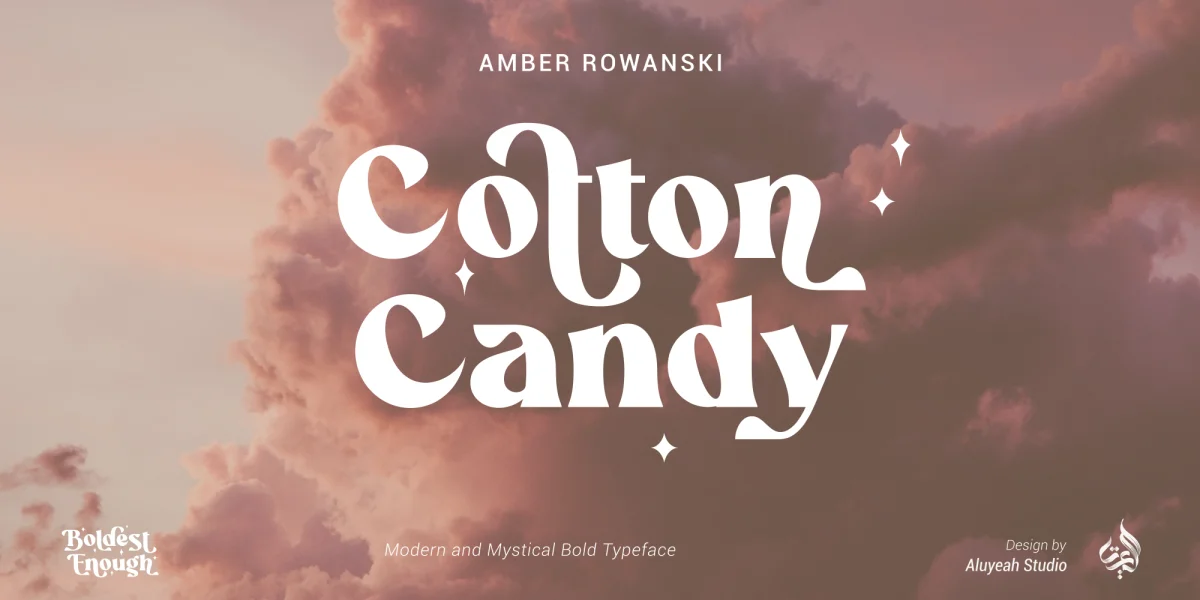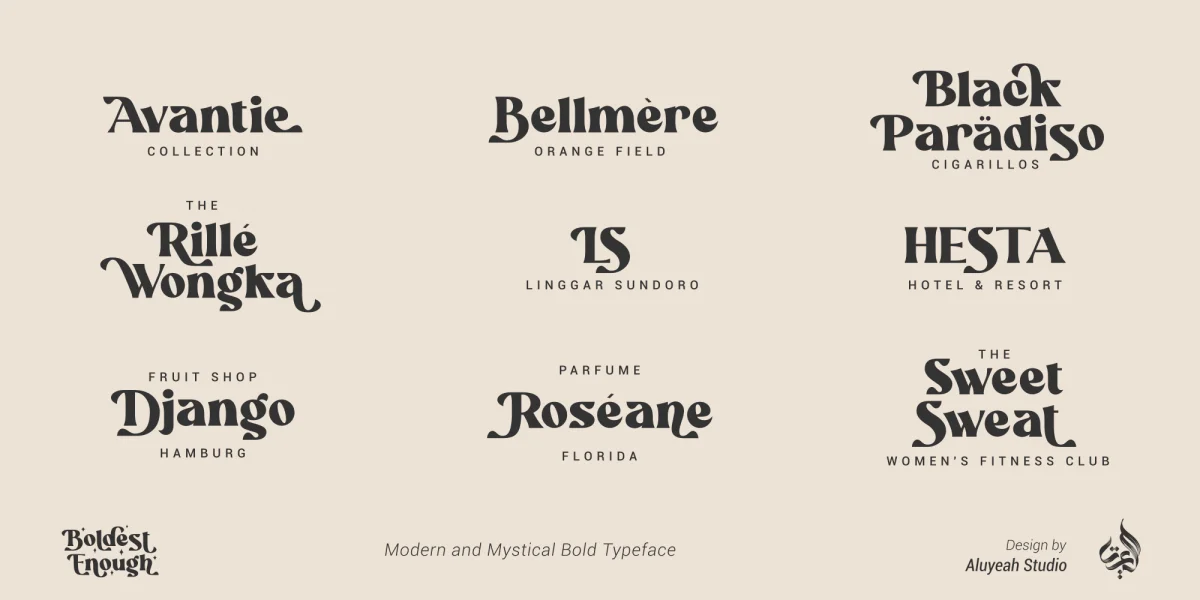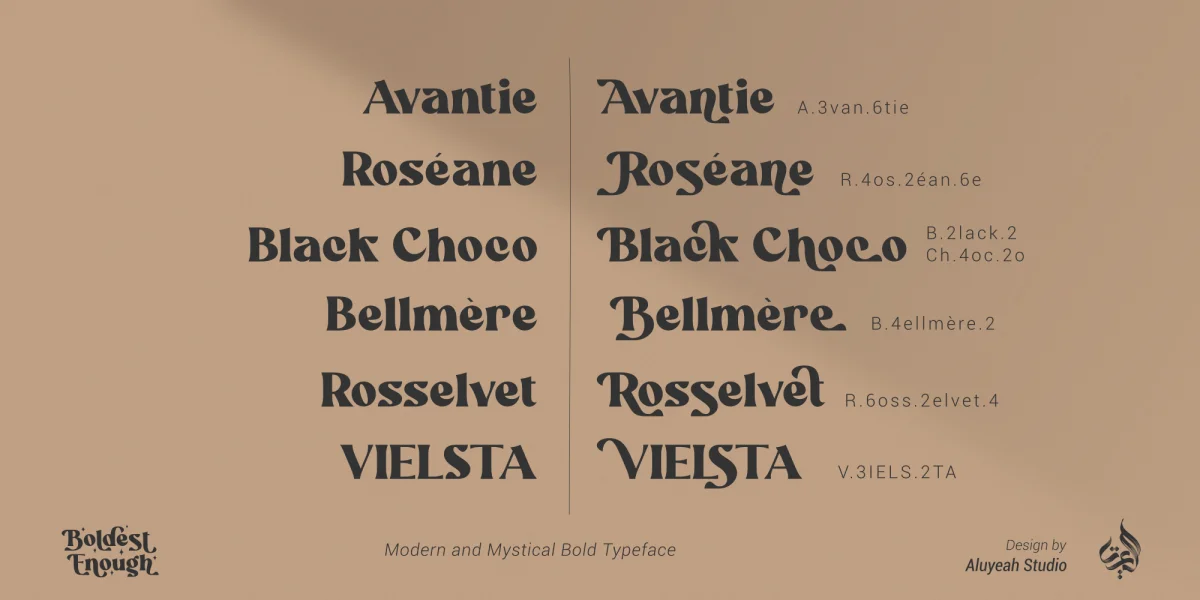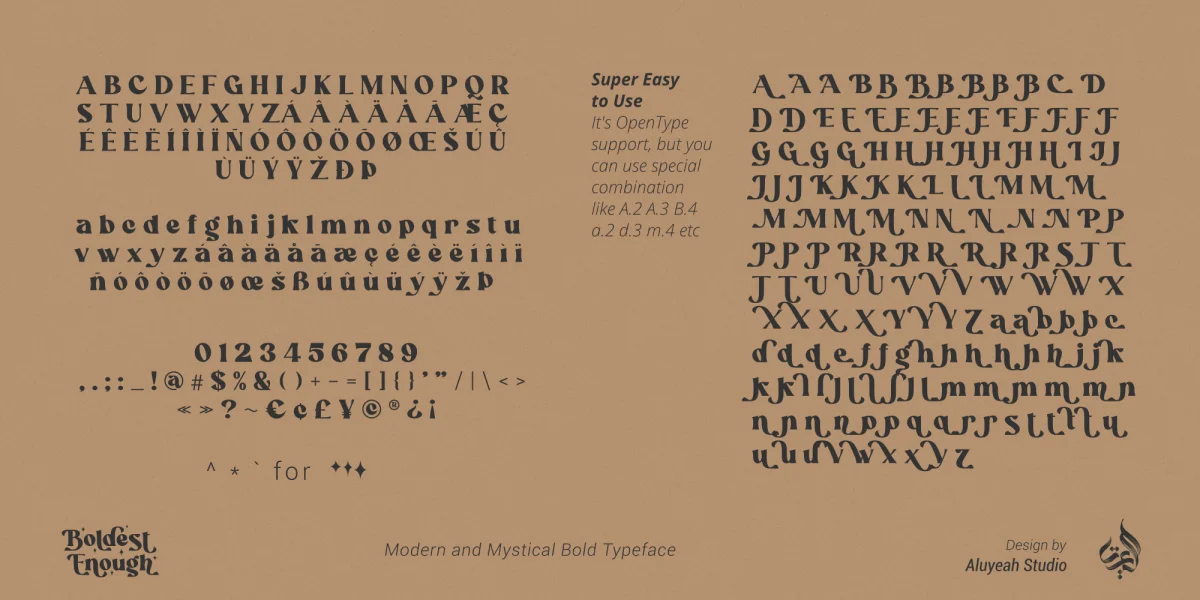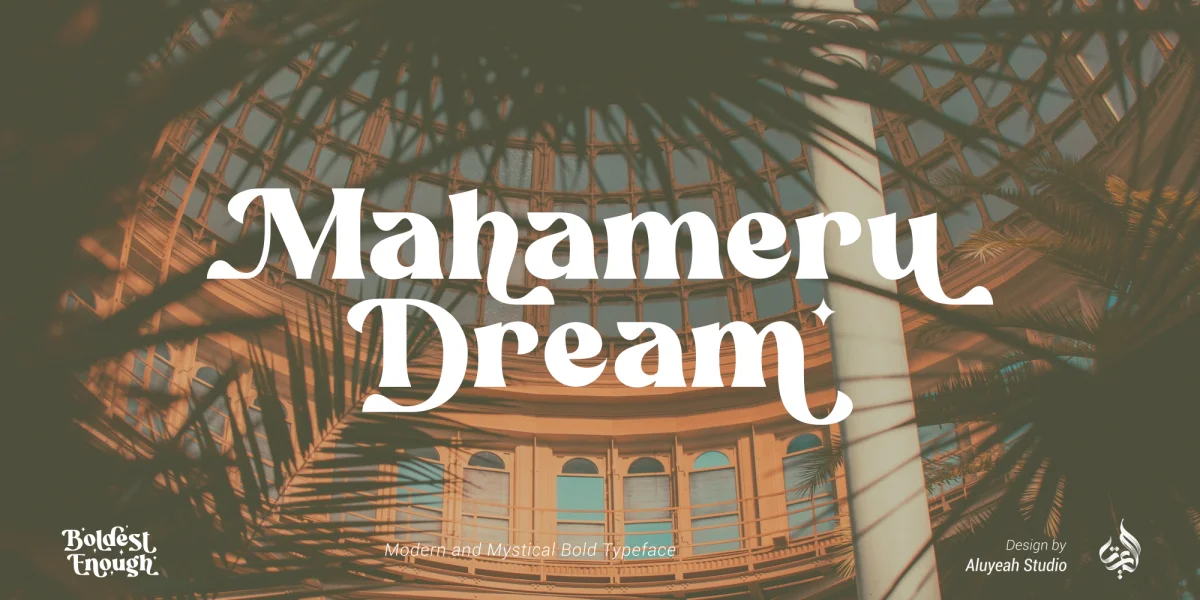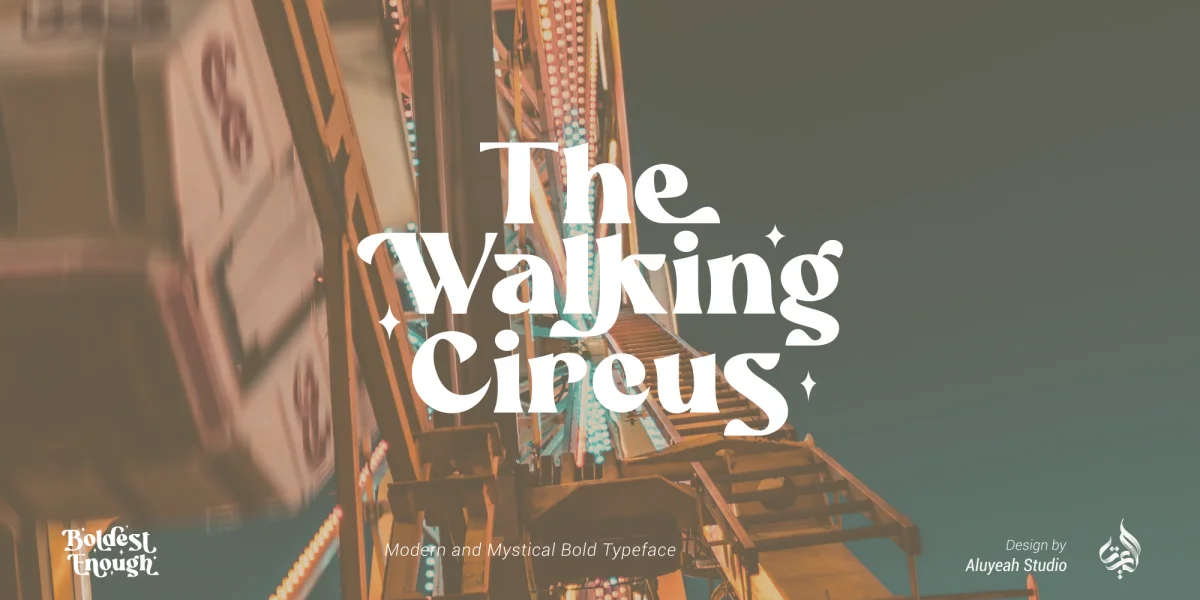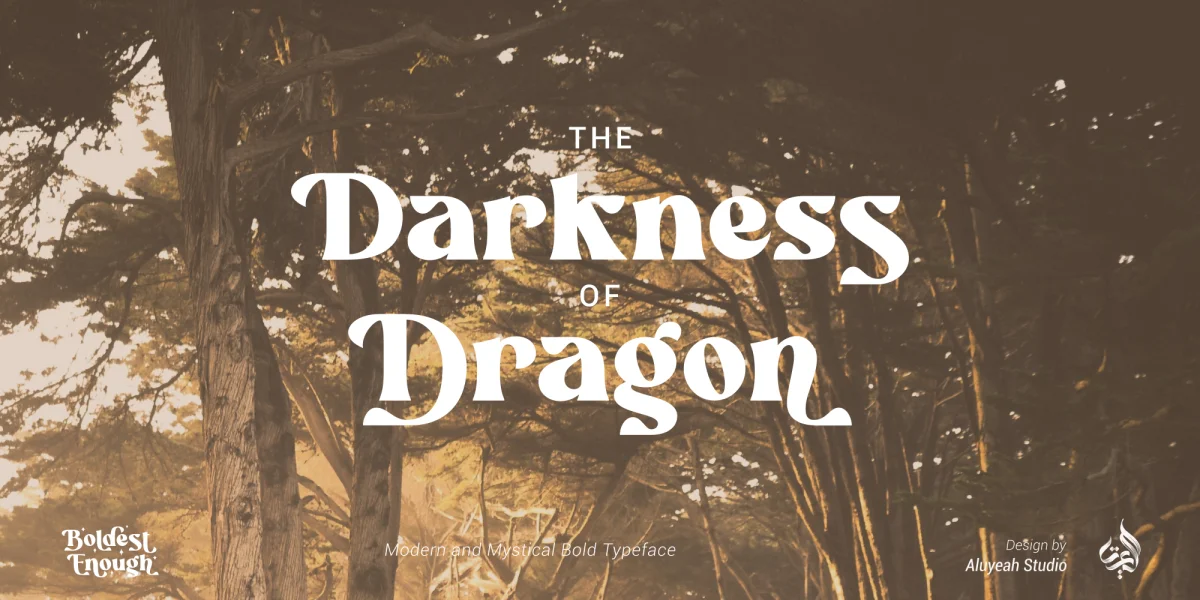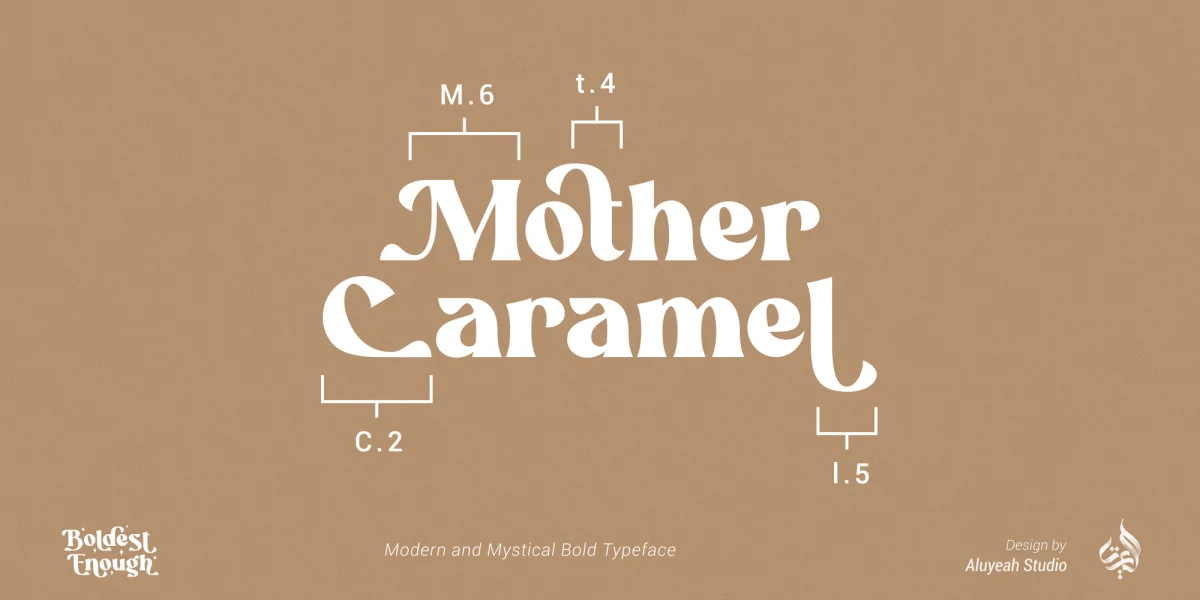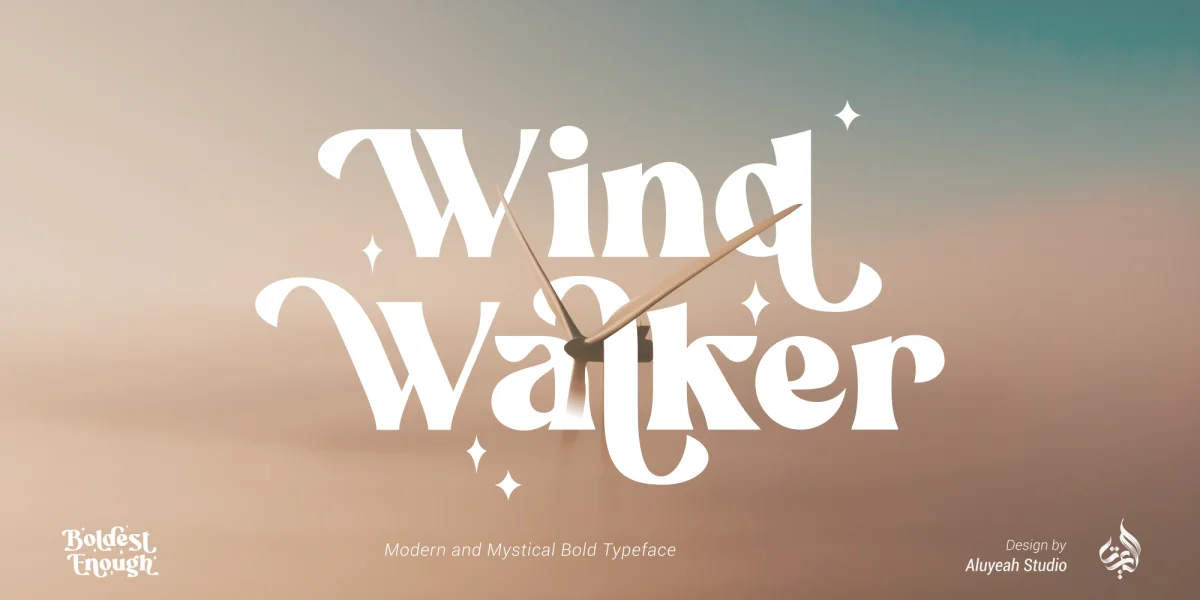
To get results like the preview just type B.4ol.9d.2es.2t.2 E.4n.5ough.7
Boldest Enough, modern and mystical bold display typeface. Inspired by the mystical animation horror movie for kids. It gives you fear, curiosity, and amazement at the same time. Coming with 160+ stunning and super easy to use alternates.